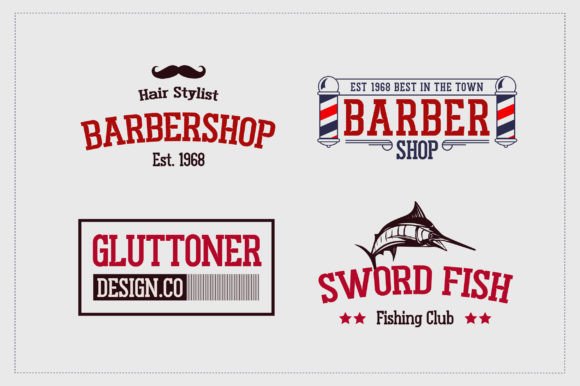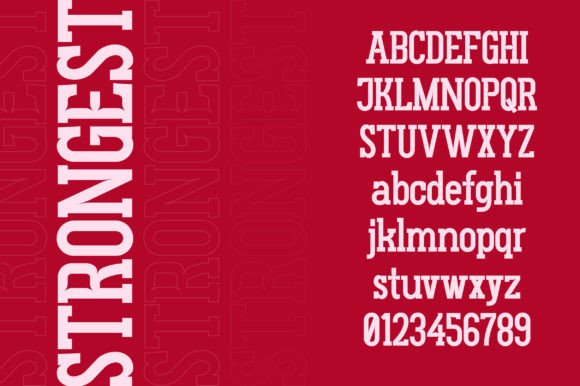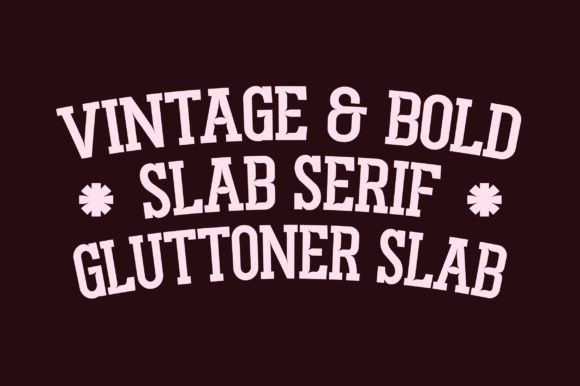
The Gluttoner Font: A Bold, Vintage Serif for the Modern Designer
Have you ever been in the middle of a design project, and suddenly, you’re stuck on finding the perfect font? I certainly have. It was a typical Wednesday evening when I received a last-minute request from a client asking for a bold, vintage-inspired font for their new urban-themed branding campaign. As I scrolled through my font library, I stumbled upon the Gluttoner Font – a game-changer for any designer looking for a statement piece.
A Personal Encounter with Gluttoner
I was immediately drawn to Gluttoner’s unique blend of bold serifs and urban flair. The font’s strong characters seemed to scream “city streets” and “vintage vibes.” I knew right then that I had to give it a try. After using Gluttoner for several projects, I’ve fallen in love with its versatility and style.
- ✨ Unique character set: Gluttoner’s glyphs are carefully crafted to provide a distinctive look that’s hard to find elsewhere.
- ✅ Bold and eye-catching: This font is perfect for headlines, titles, and any text that needs to stand out.
- 💡 OpenType features: Gluttoner comes with a range of OpenType features, including stylistic alternates and ligatures, which add an extra layer of creativity to your designs.
While Gluttoner is an excellent font, there are a few things to keep in mind:
- 🤔 Legibility at small sizes: Due to its bold nature, Gluttoner may not be the best choice for body text or small font sizes.
- ⚠️ Limited use cases: While Gluttoner is incredibly versatile, it’s not suitable for every project. Be mindful of the font’s style and tone to ensure it aligns with your design goals.
The Backstory Behind Gluttoner
The Gluttoner Font was designed with urban culture in mind. Its creator aimed to craft a font that would reflect the bold, vibrant spirit of city streets. Inspired by vintage typography and modern design trends, Gluttoner is the perfect blend of old and new.
Q: What type of projects is Gluttoner best suited for?
A: Gluttoner is ideal for projects that require a bold, eye-catching font, such as branding campaigns, posters, and urban-themed designs.
Q: Is Gluttoner a versatile font?
A: Absolutely! Gluttoner’s range of OpenType features and glyphs make it a versatile choice for various design applications.
Q: Can I use Gluttoner for body text?
A: While Gluttoner is a beautiful font, it’s not recommended for body text due to its bold nature. Instead, use it for headlines, titles, or accent text.